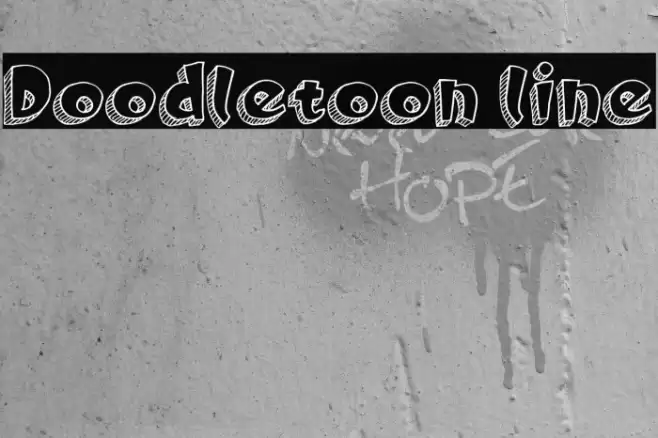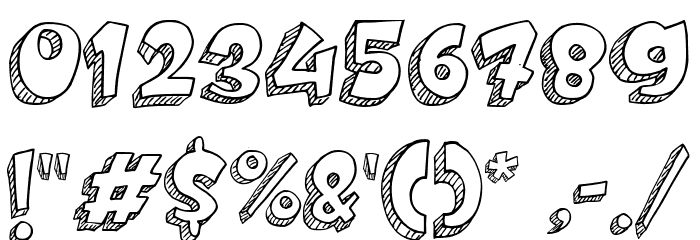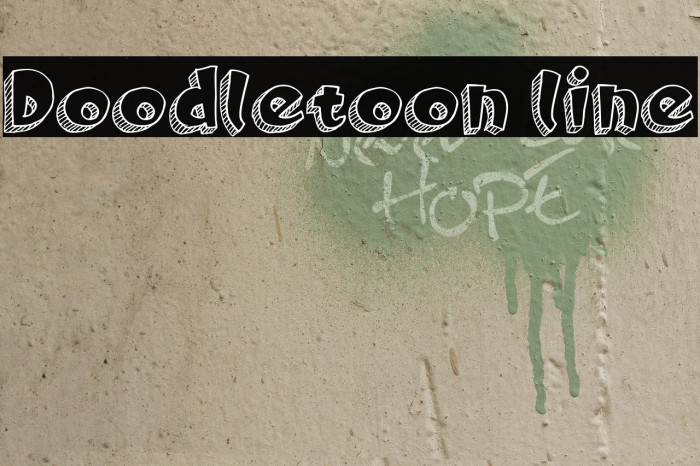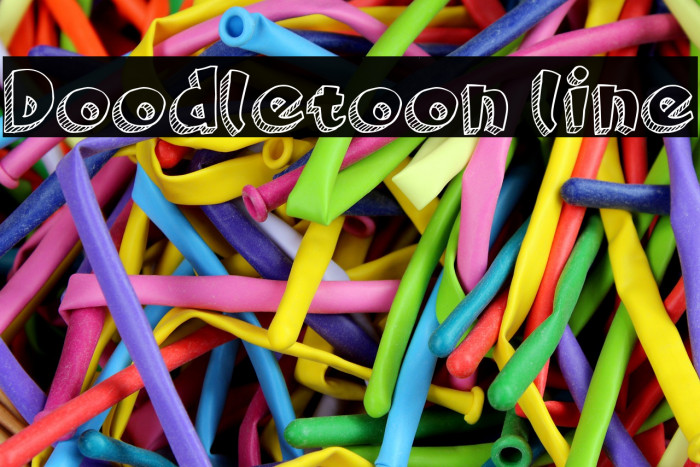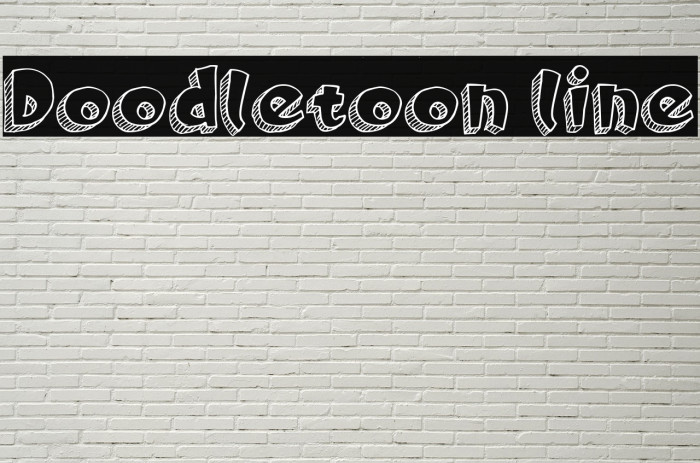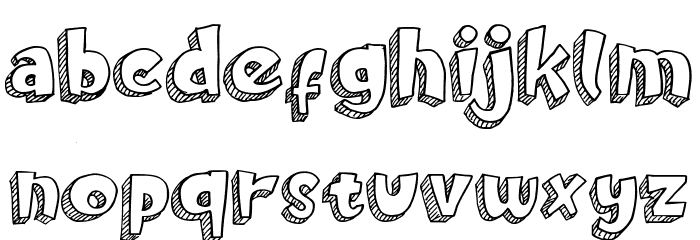
Doodletoon line Font
Doodletoon line Description
This playful and whimsical font features a hand-drawn, doodle-like style with a three-dimensional effect. Each character is outlined with a bold stroke and filled with diagonal hatching, giving it a textured appearance. The letters are slightly irregular, adding to the casual and fun aesthetic. The font includes both uppercase and lowercase letters, numbers, and a variety of special characters. Its unique style makes it stand out, perfect for creative and informal projects.
A playful, hand-drawn font with a 3D doodle effect and textured hatching from Cartoon fonts.
- Proposed Projects: Ideal for children's book covers, comic strips, playful branding, and creative posters.